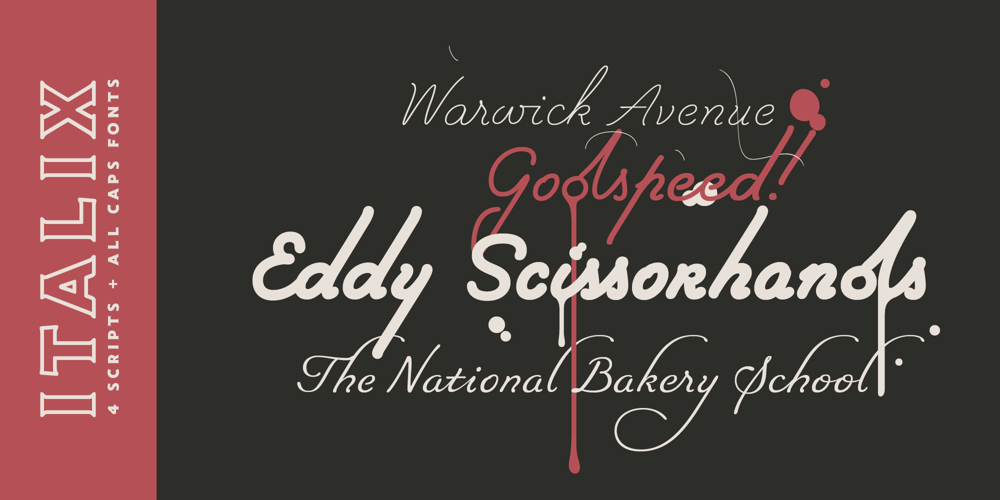
Italix Font Family was designed by Kristof Van Proeyen and published by Punch. Italix contains 12 styles and family package options. Italix is an easygoing font family with mainly 4 script styles (Fineliner, Brushpen, Marker & Fatstick) and 7 supportive AllCaps fonts. Each script has its own unique personality, and come with optional ink splatters. These are attached to several ligatures, so don’t forget to activate the “OpenType Features” and the “World Ready Composer” in the application settings. The cool thing about Italix is that you can have a lot of creative fun with it, and its multiple features. Brushpen has a more classic look, Fineliner is a bit quirky, Marker is the chill one, and Fatstick is a total badass!